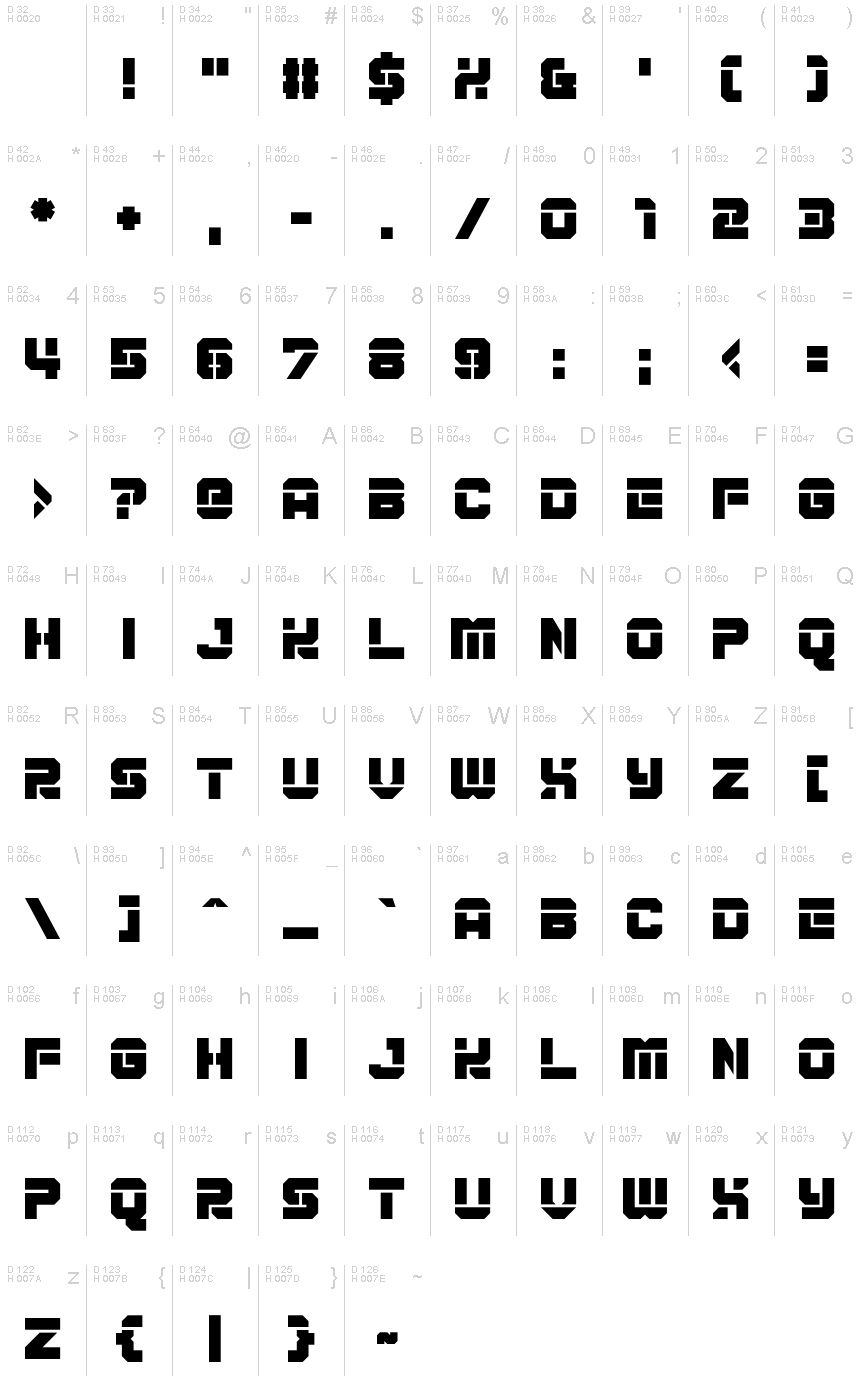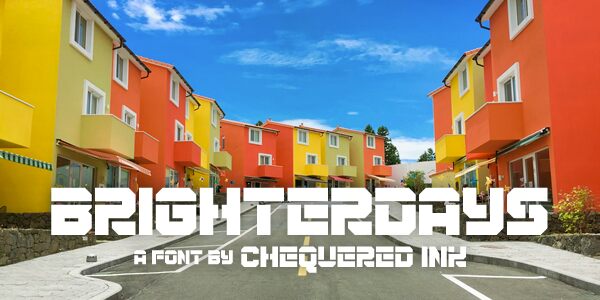
Brighterdays
Brighterdays by Chequered Ink is a captivating display font that exudes a powerful, military-inspired aesthetic. Its bold, stencil-like letterforms and futuristic undertones create a striking visual impact, conveying a sense of strength and resilience. The font's distinct character and sharp edges lend themselves seamlessly to headlines, branding, and eye-catching design elements, making it a versatile choice for a wide range of applications.
This font's unique style and bold presence make it an excellent option for projects that require a commanding, attention-grabbing presence. Its military-inspired flair and futuristic edge make it well-suited for use in product packaging, event branding, or any design work that aims to convey a sense of strength, modernity, and visual impact.